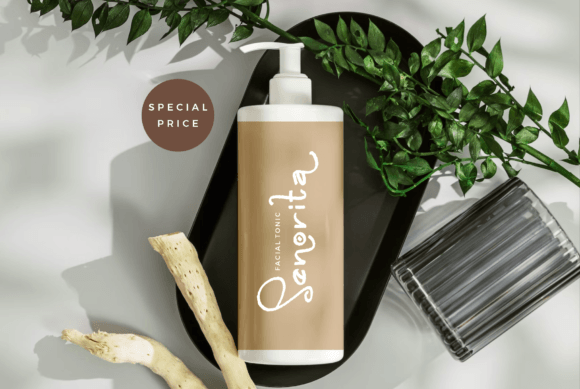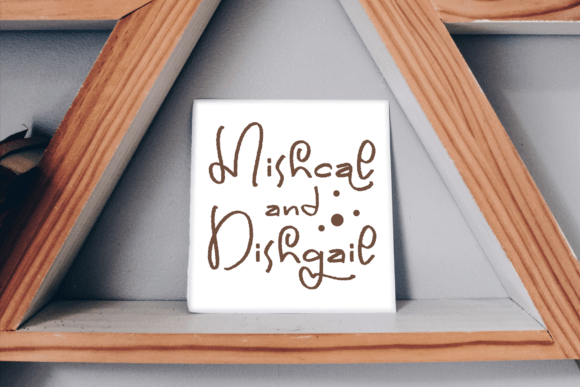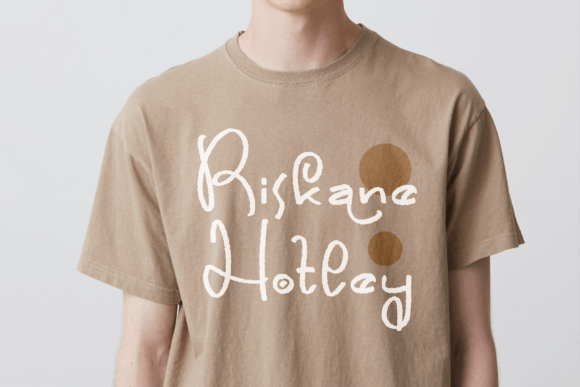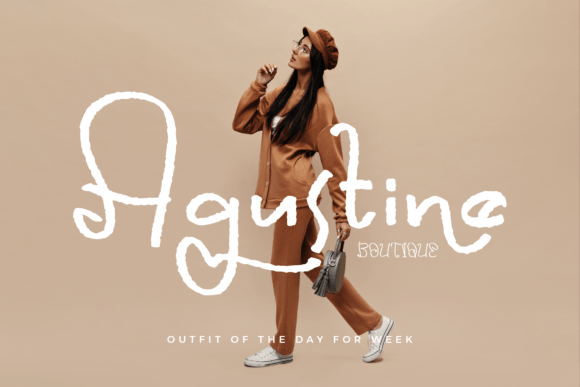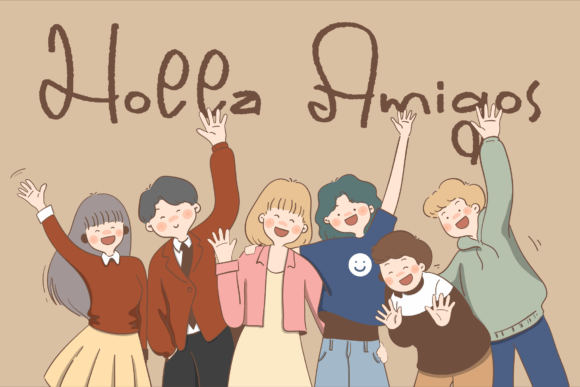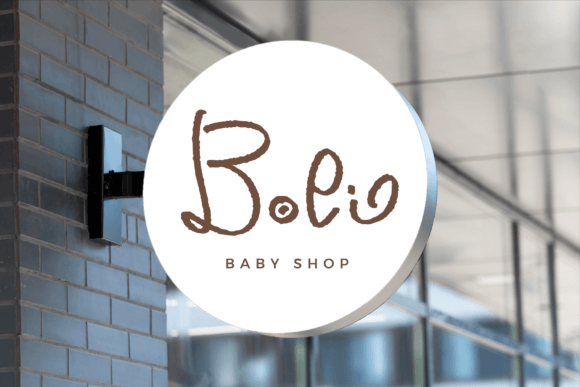
Introduction to Mubykine Charlott Font
Mubykine Charlott is a lovely and timeless handwritten font.
Key Features of Mubykine Charlott Font
Why Choose Mubykine Charlott Font?
Mubykine Charlott Font offers exceptional quality and versatility, making it a valuable addition to your design toolkit. Whether you’re creating for personal projects or commercial use, Mubykine Charlott Font delivers professional results.